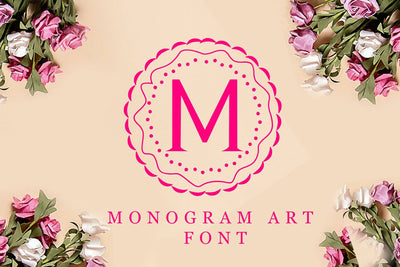
Monogram Art
Monogram Art is a romantic and beautiful decorative font. Fall in love with its beauty and use it to create beautiful invitations, beautiful stationary art, interesting social media posts, or greeting cards and you will surely be surprised at the results.